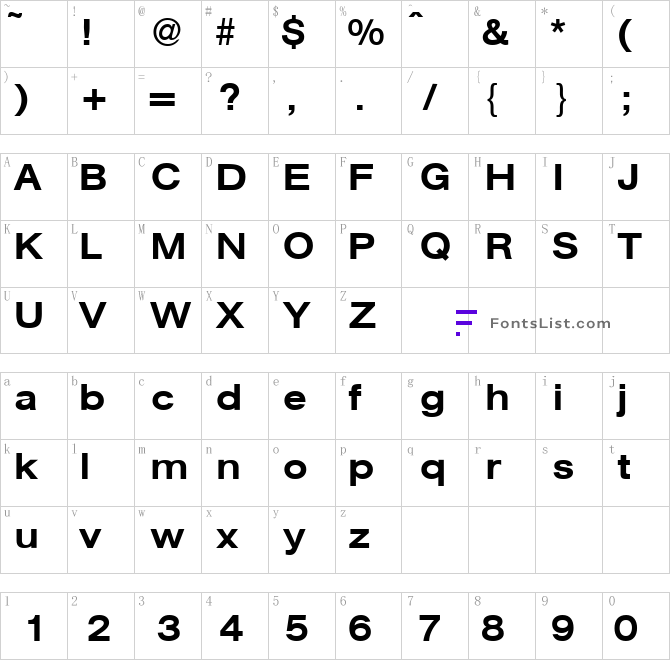
- Font Name:AtkinsExtendedMedium
AtkinsExtendedMedium-Regular.ttf is a very beautiful artistic font, AtkinsExtendedMedium-Regular.ttf is widely used in the design and printing of various books and pictures,AtkinsExtendedMedium-Regular.ttf has a strong visual impact,AtkinsExtendedMedium-Regular.ttf is a commonly used font in newspapers, magazines and books, and is used in posters, e-commerce Poster design, store design, logo design, font design and other fields.AtkinsExtendedMedium-Regular.